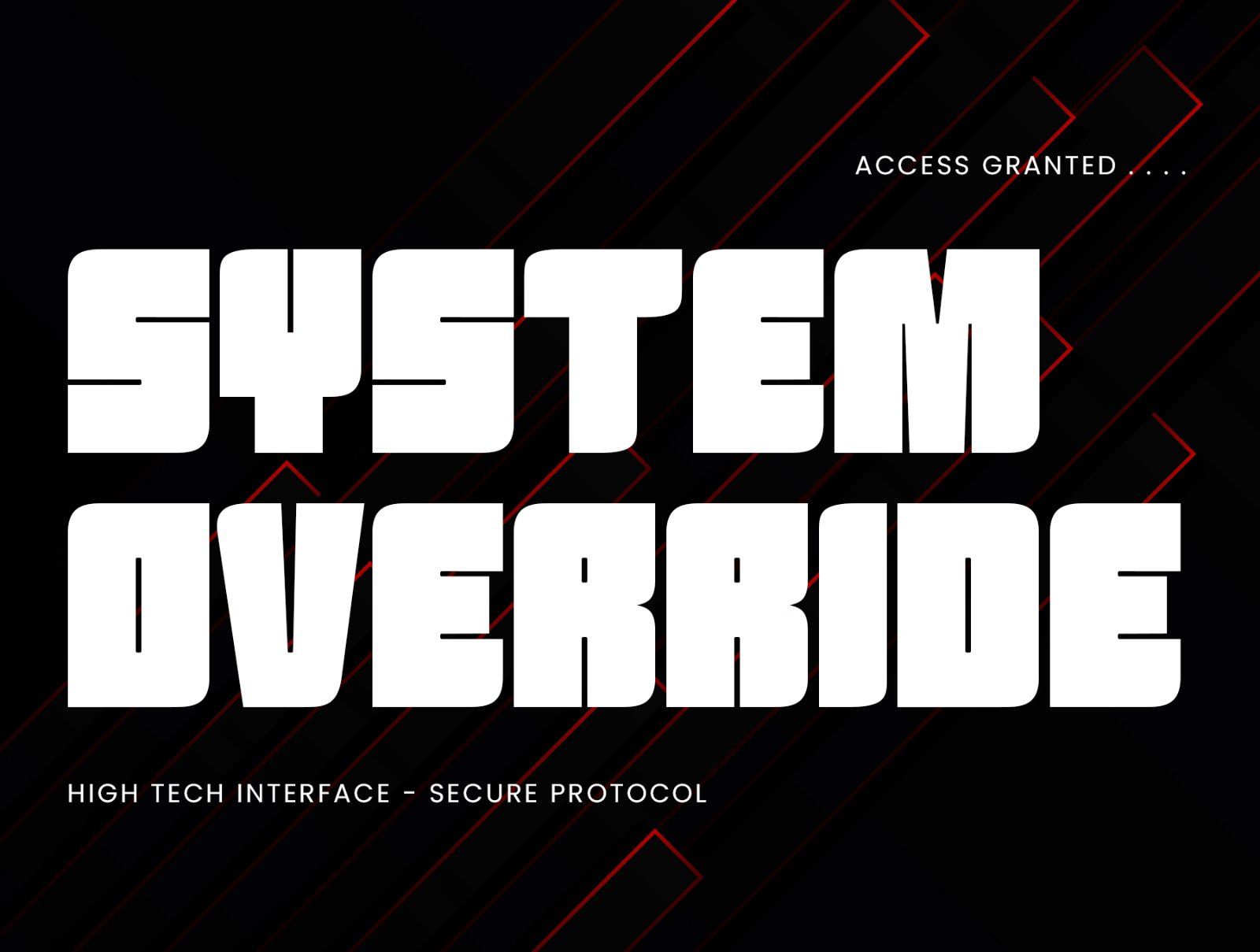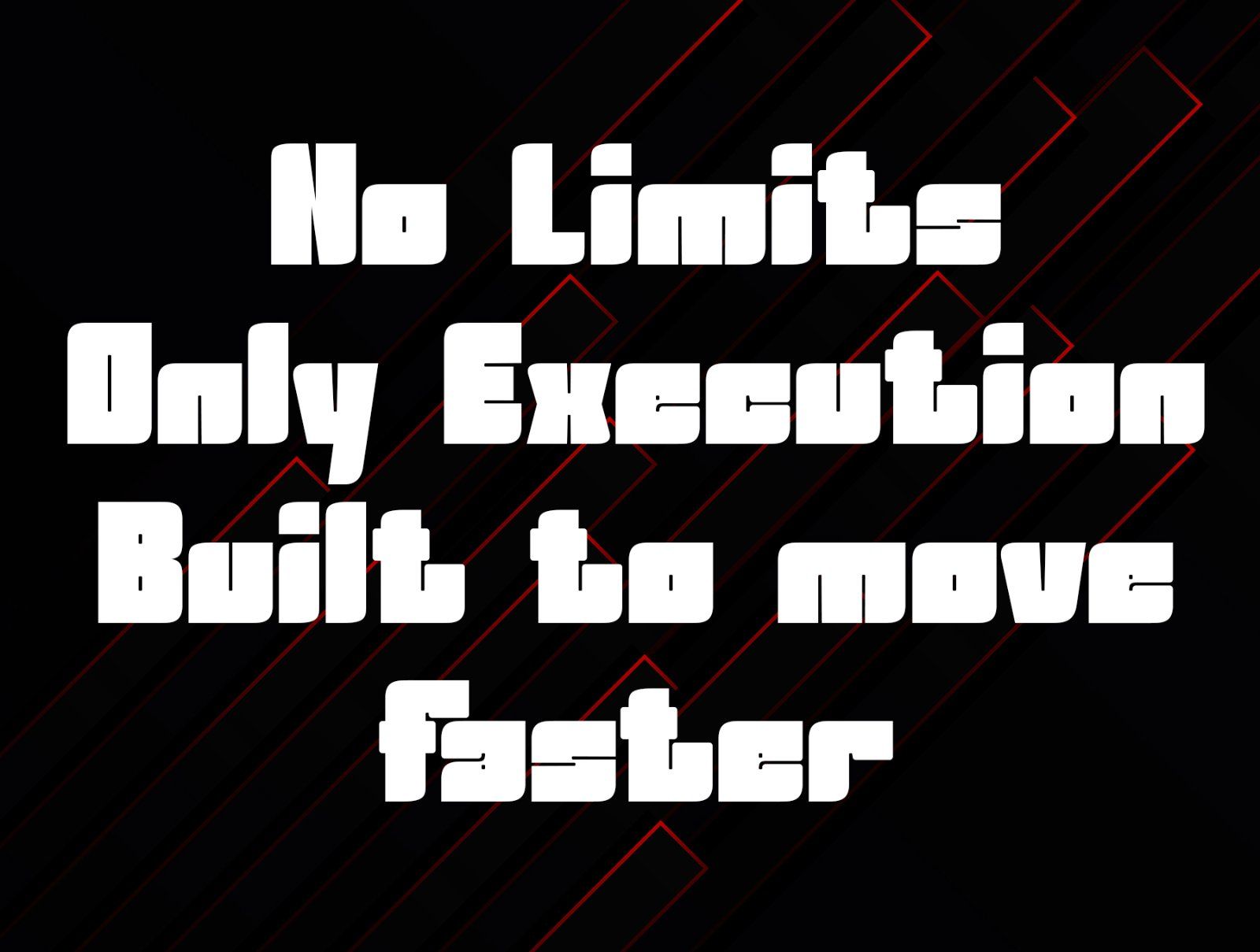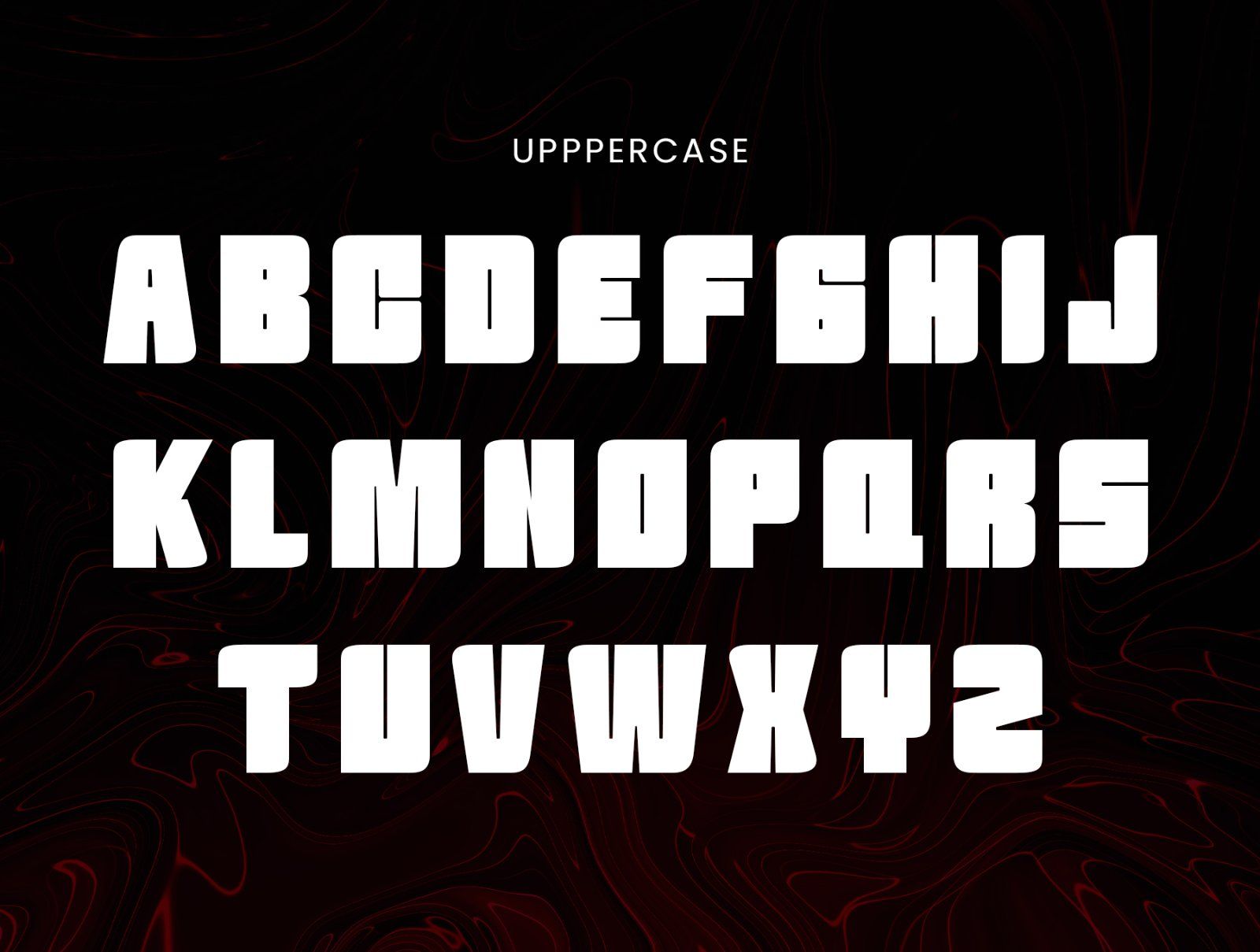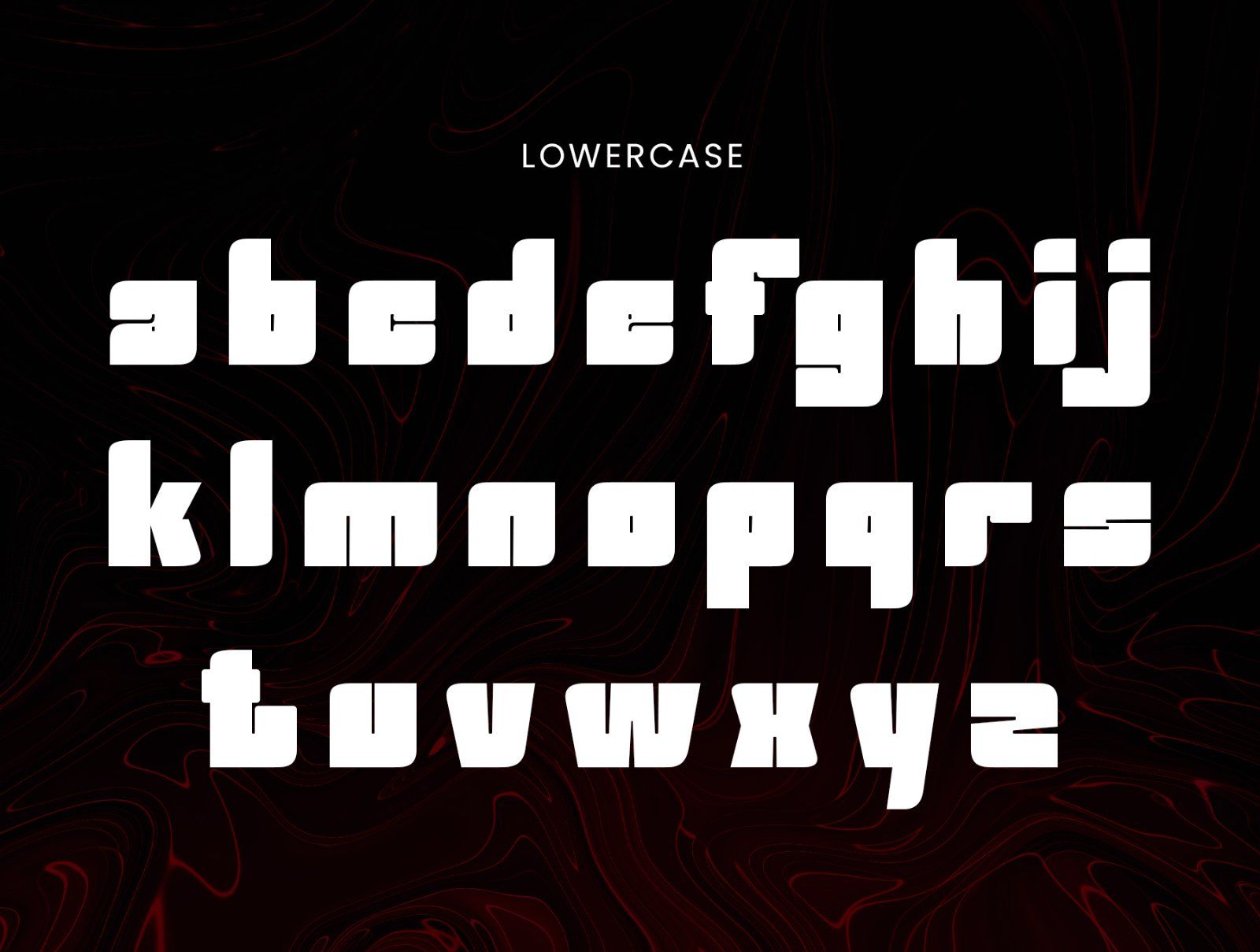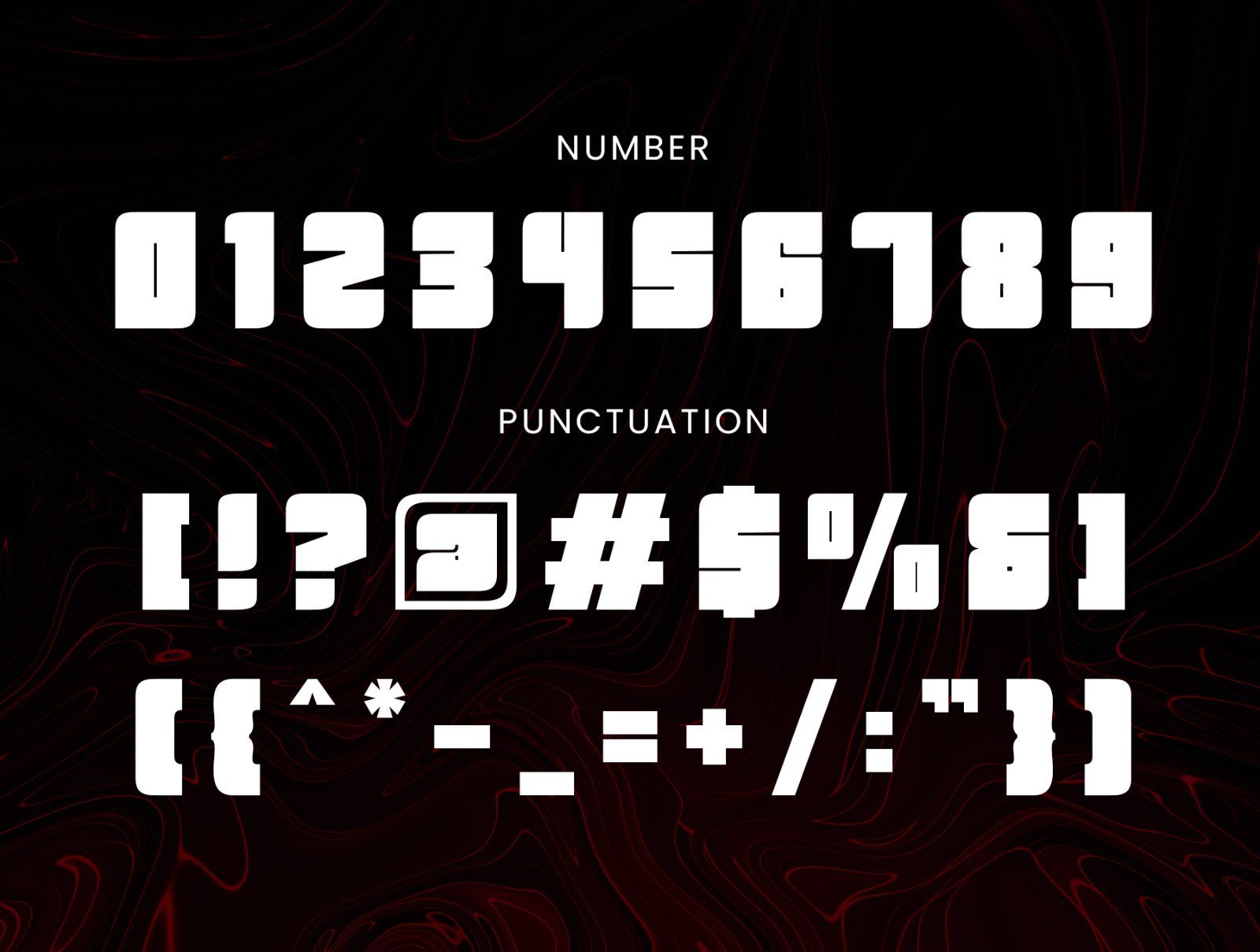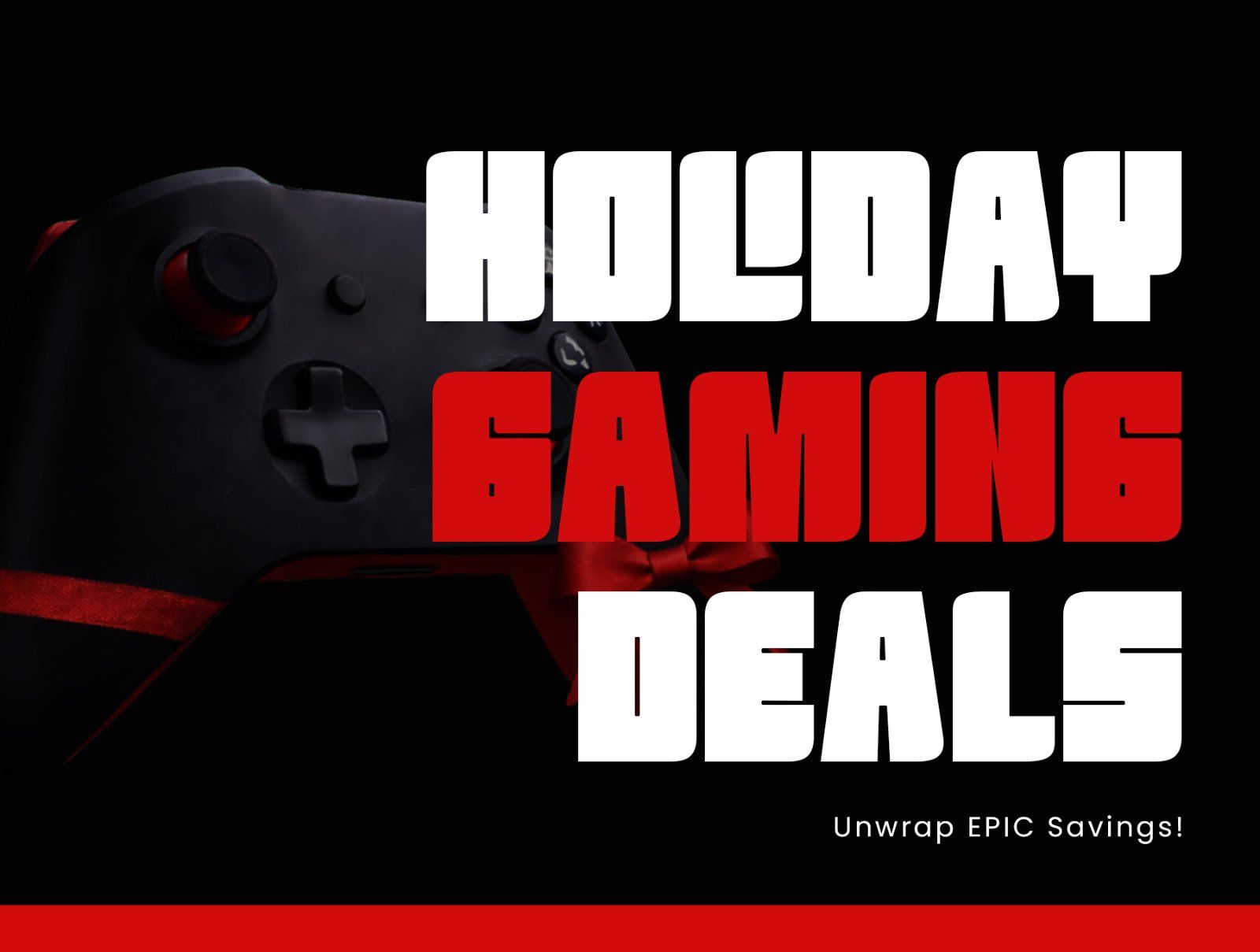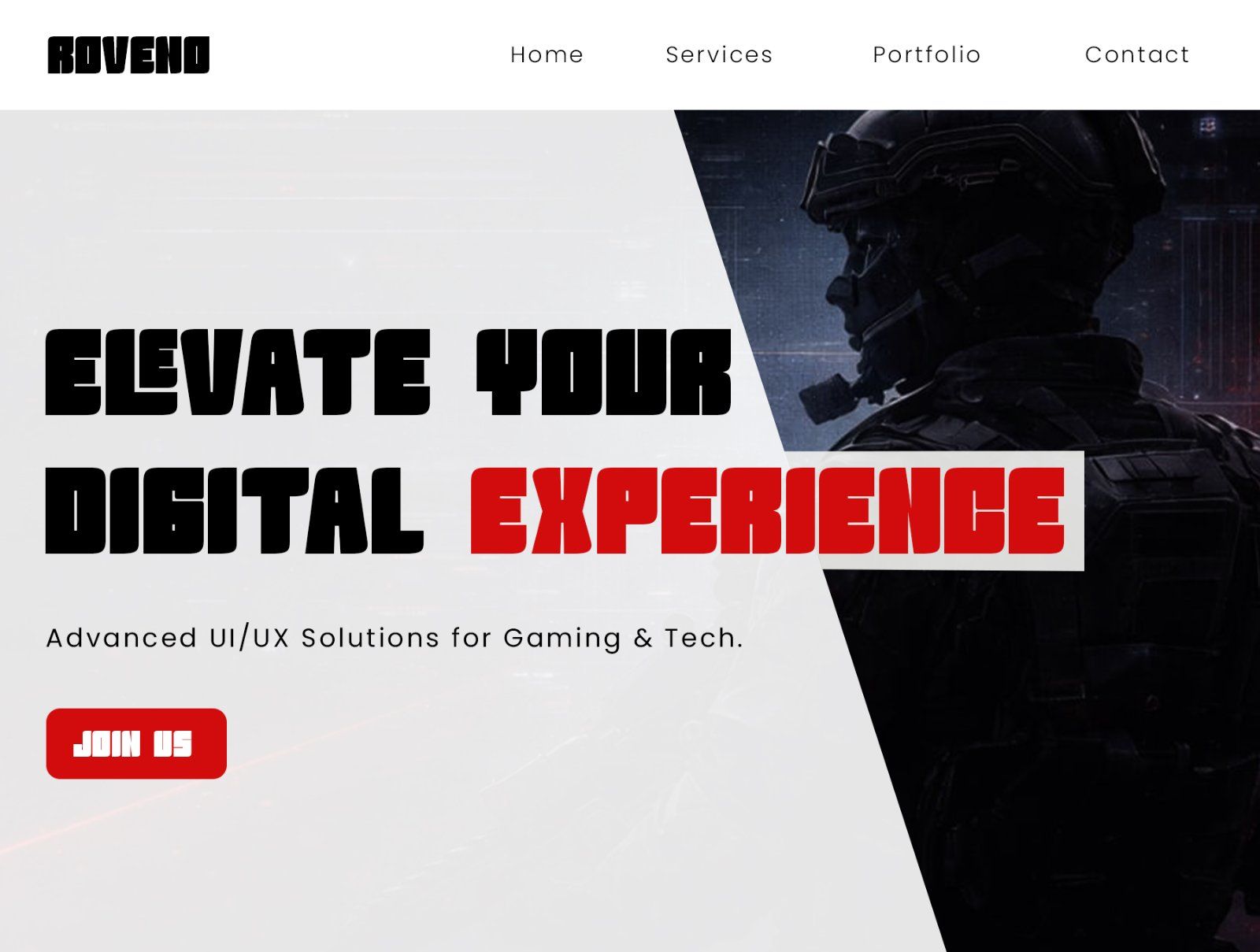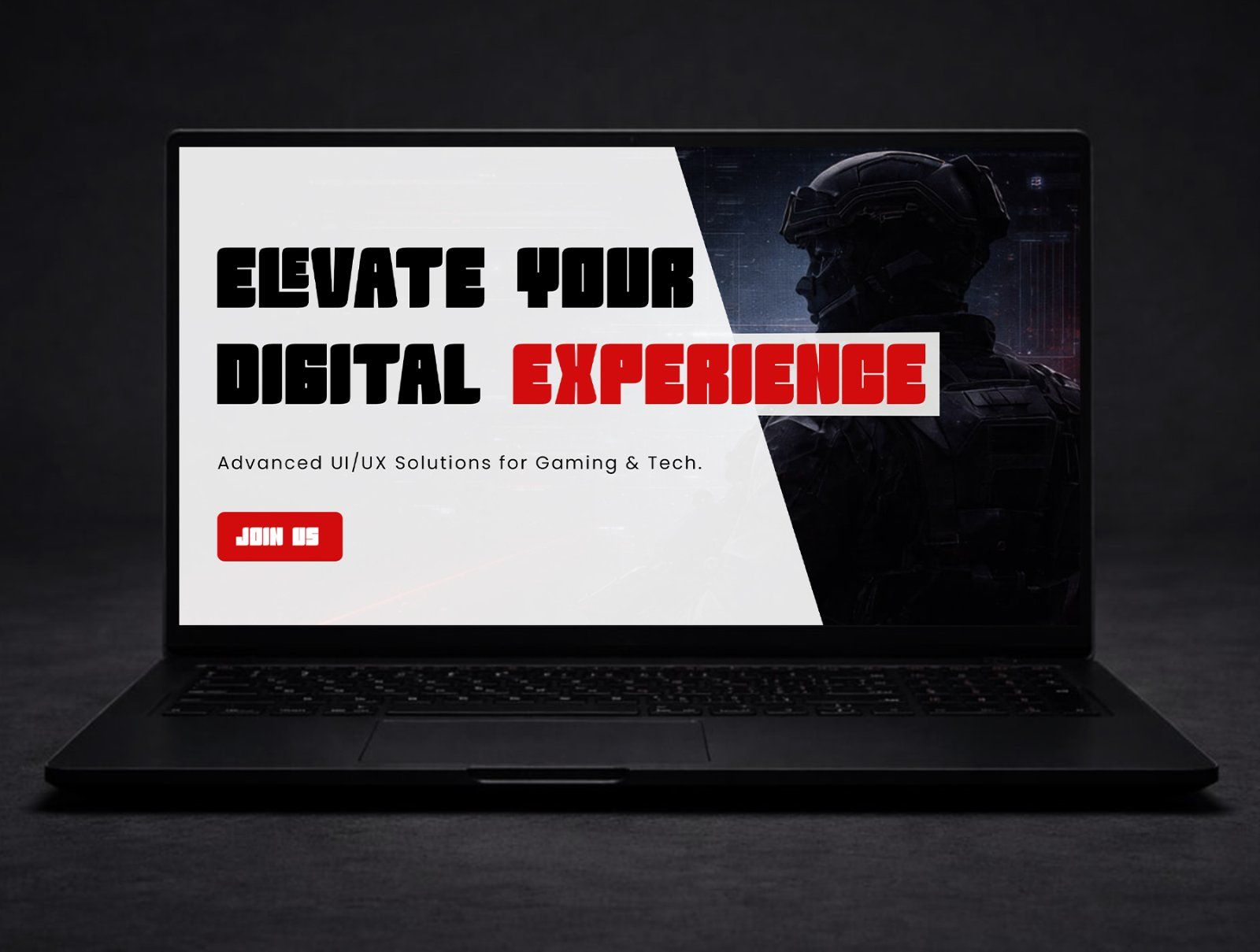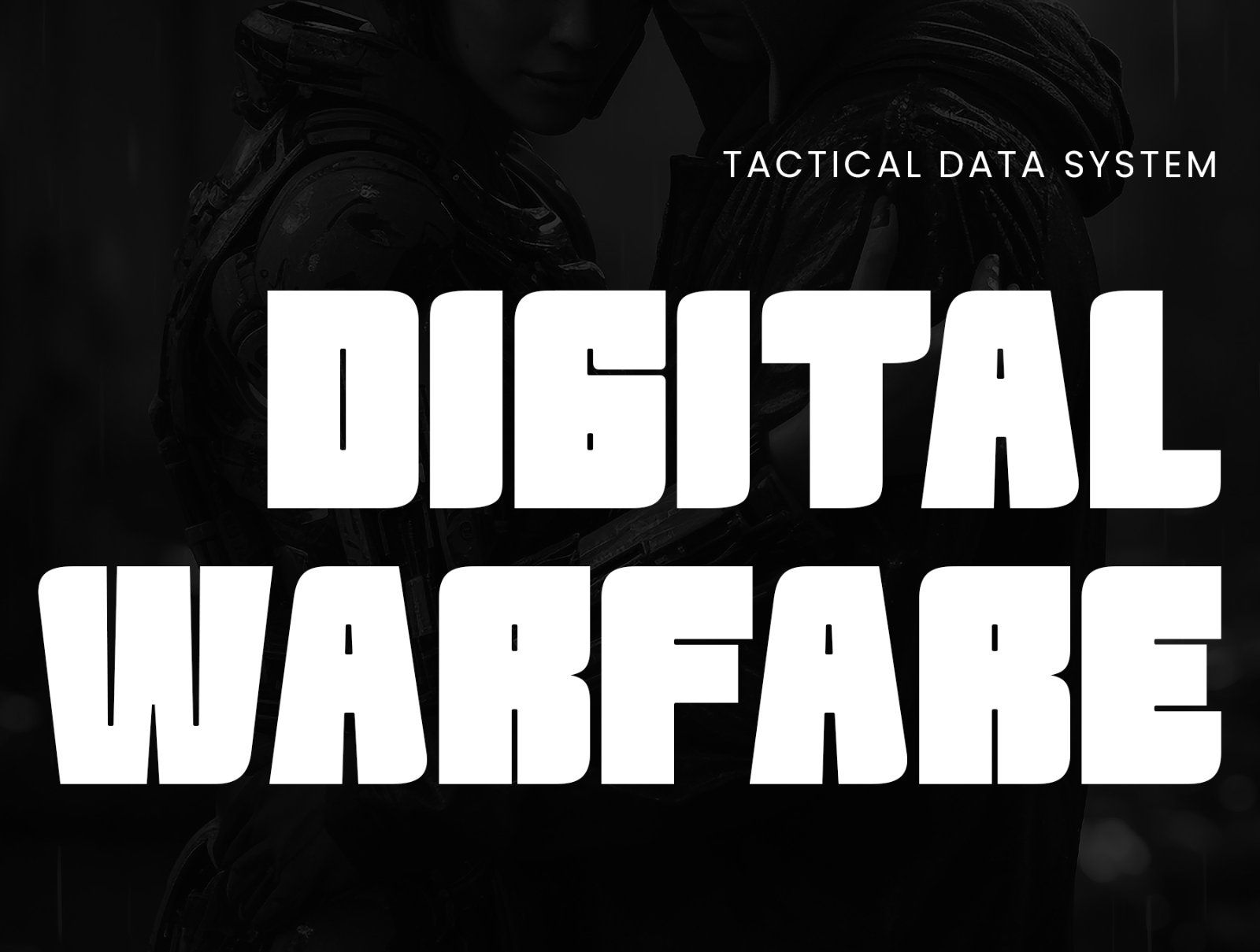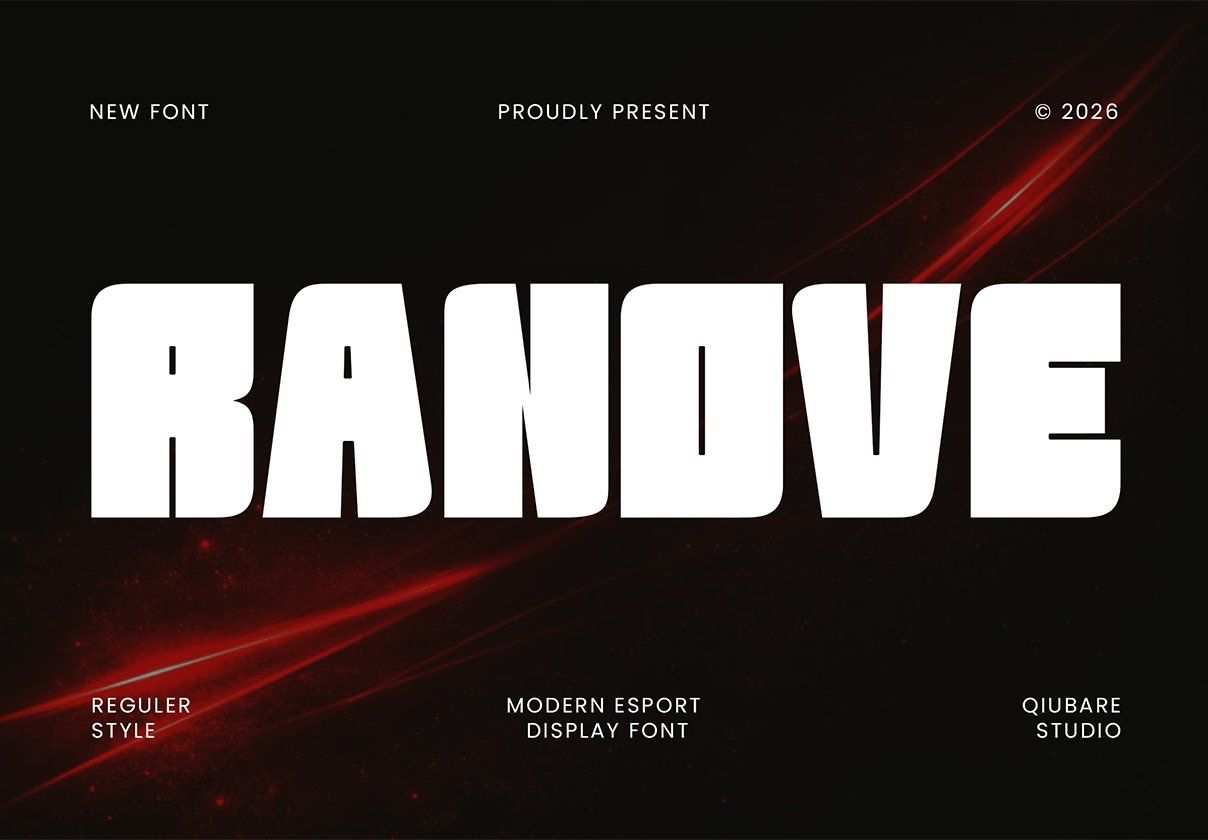
RANOVE is a bold and powerful modern display font crafted for high-impact visuals. Inspired by esport, futuristic interfaces, and digital aesthetics, this font delivers a strong, aggressive, and confident look that instantly grabs attention.
Designed with solid geometric forms and sharp personality, RANOVE is perfect for projects that need a modern, tech-driven, and energetic vibe.
Whether you're creating gaming content, UI/UX designs, posters, branding, or digital products — RANOVE makes your typography stand out.
• Key Features
Uppercase & Lowercase characters
Numbers & Punctuation
Strong, bold display style
Clean and modern esport aesthetic
High readability for headlines
Perfect for digital & print use
Perfect For
Esport & Gaming designs
Tech & futuristic branding
UI/UX interfaces
Posters & promotional graphics
YouTube thumbnails & social media
Website headers & hero sections
Digital products & merchandise